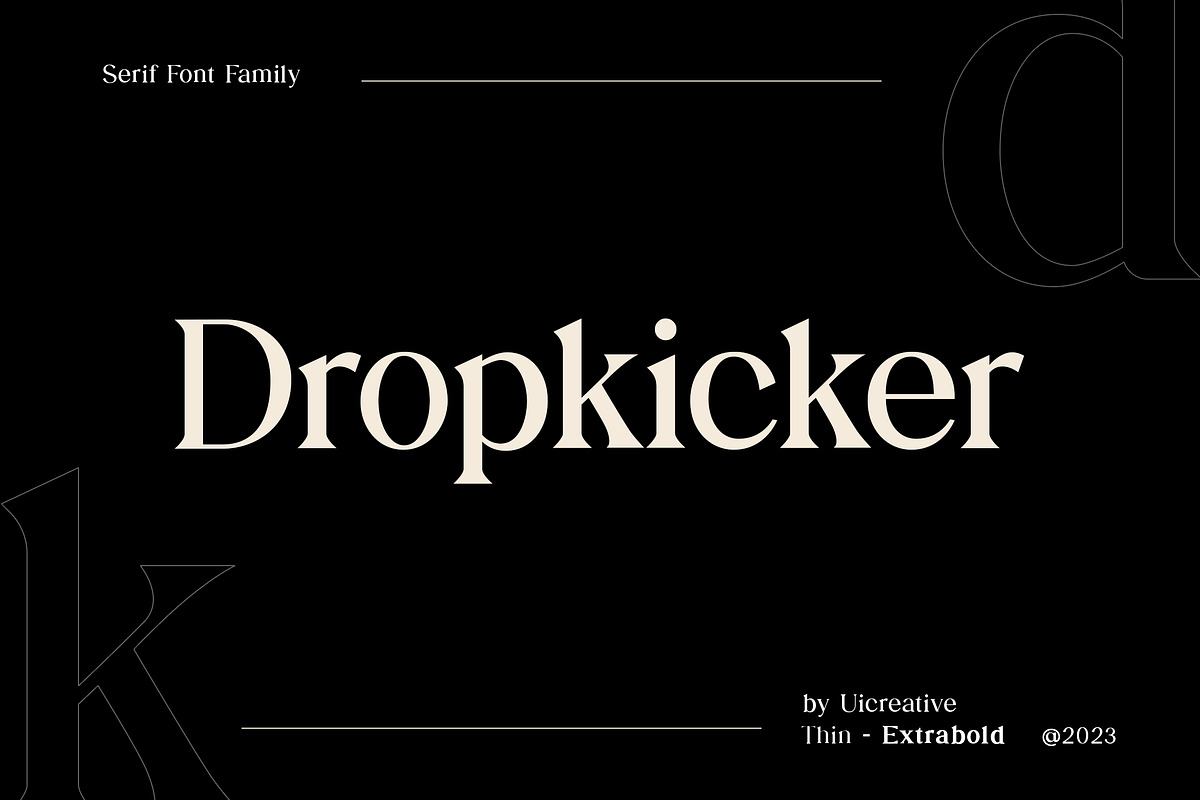
Dropkicker Serif Font Free Download
Dropkicker Serif Font Free Download is a bold and stylish serif typeface designed to make a statement in any design. With its strong, sharp serifs and modern proportions, this font is perfect for creating impactful logos, branding, posters, and headlines. Its distinctive design combines traditional serif elements with a contemporary feel, making it ideal for both professional and creative projects. Whether you’re working on a corporate identity, an advertising campaign, or a stylish magazine layout, Dropkicker Serif Font Free Download allows you to explore its bold design in personal projects before purchasing a commercial license. Add strength and sophistication to your designs with this beautifully crafted serif font.